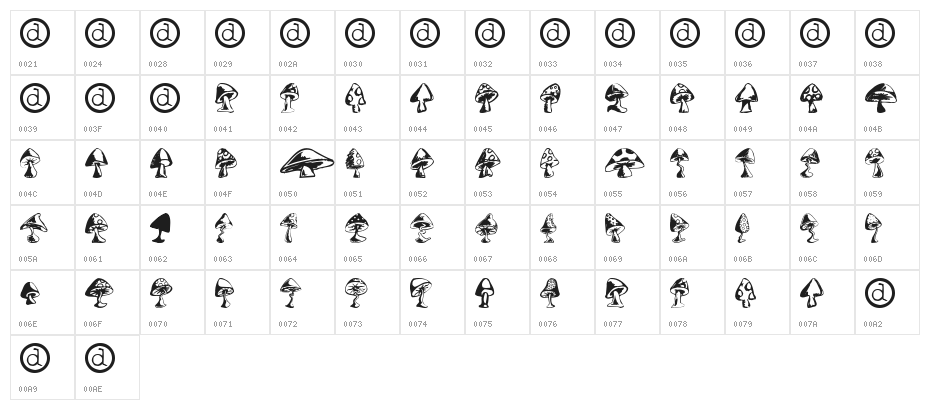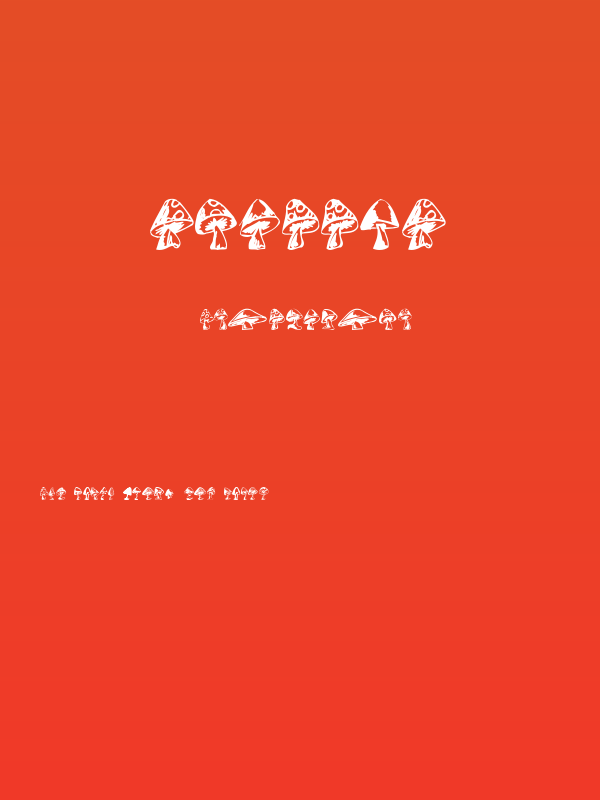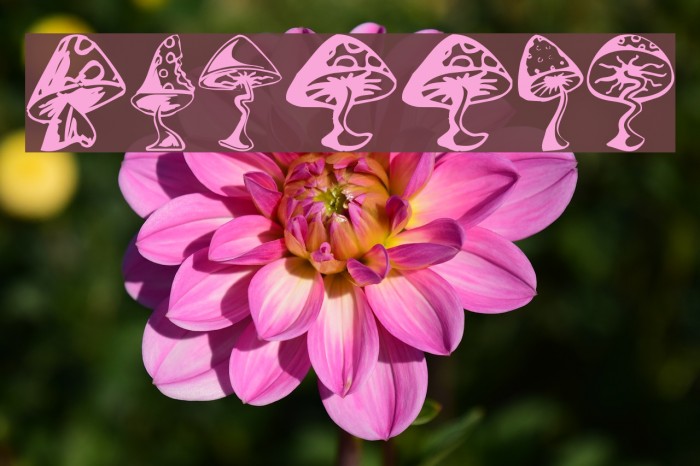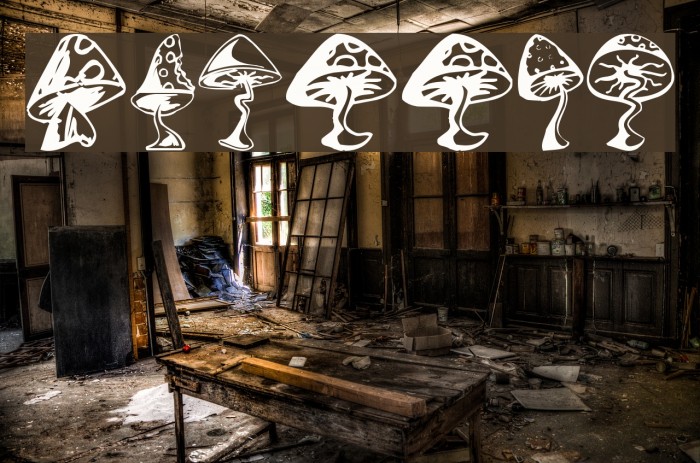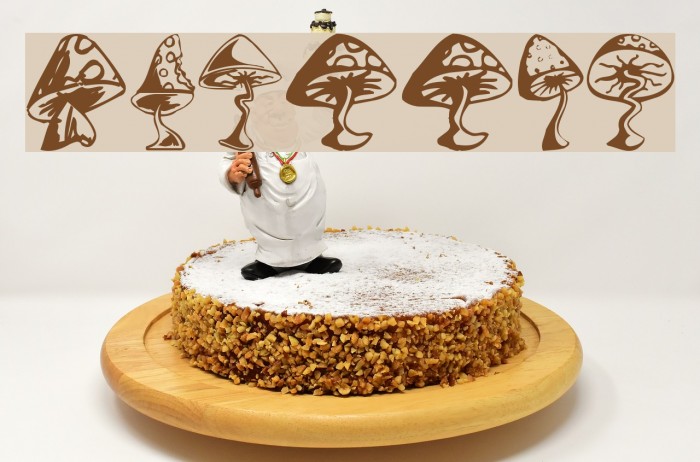
Shrooms Font
This is a decorative font featuring a variety of stylized mushroom illustrations. Each character is represented by a unique mushroom design, showcasing different shapes, patterns, and textures. The designs are bold and playful, with a hand-drawn aesthetic that adds a whimsical touch. The font is highly detailed, with intricate line work and shading that give each mushroom a distinct personality. This font is perfect for creative projects that require a fun and imaginative style.
| Overall Style | Whimsical, Playful, Hand-drawn |
| Use Case | Logos, Posters, Creative Branding |
| Proposed Projects | Ideal for children's books, fantasy-themed designs, posters, and creative branding projects. |